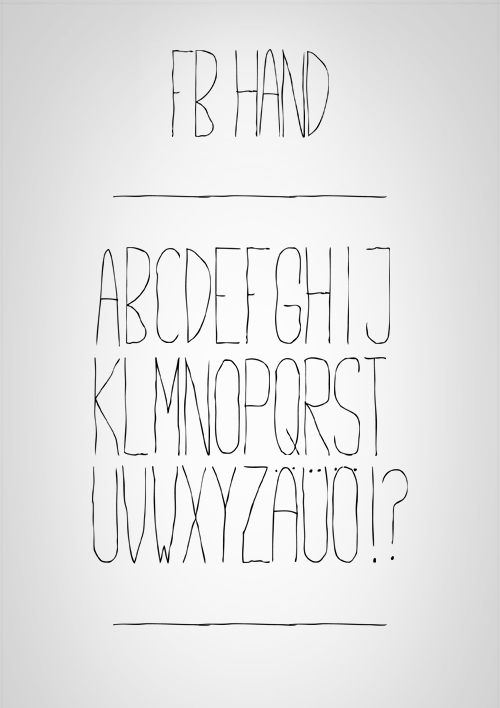
FB HAND
This Font was created by hand for the project "Golden Rules". It is an exclusive font with just uppercase letters. Altough not all glyphs included - just the important ones (NO NUMBERS!).